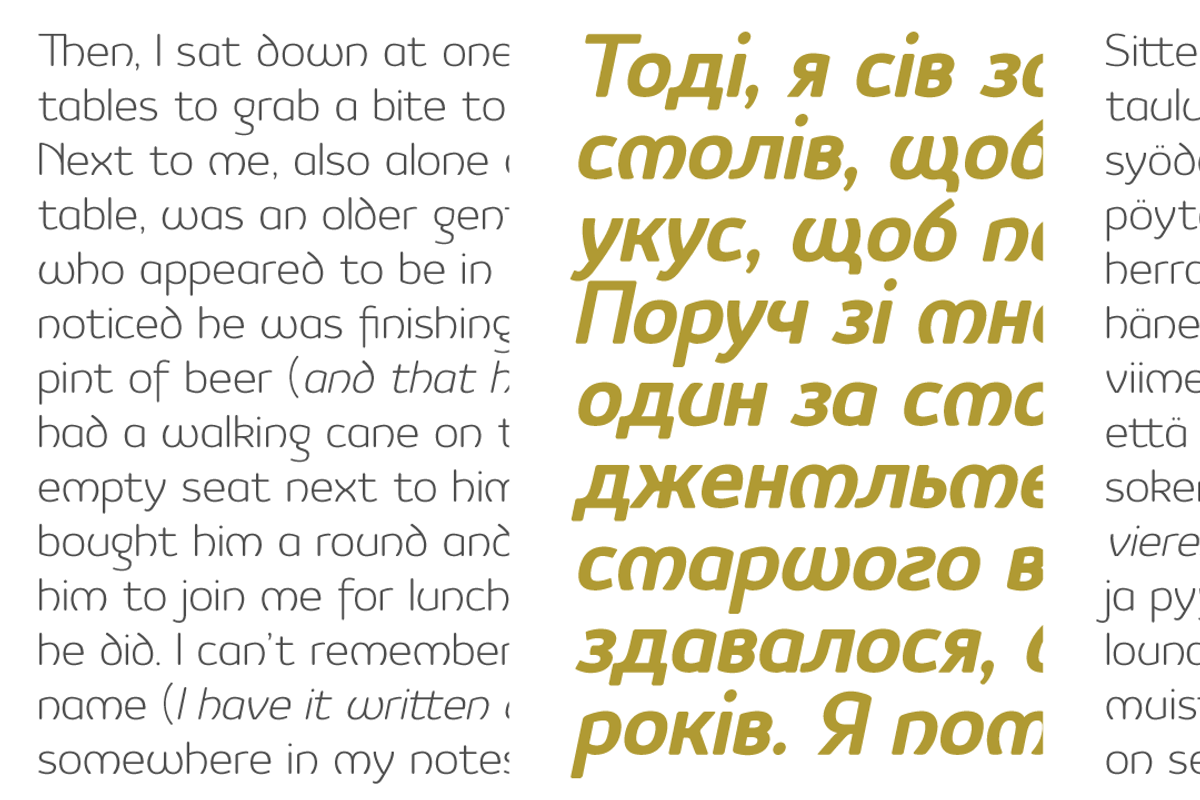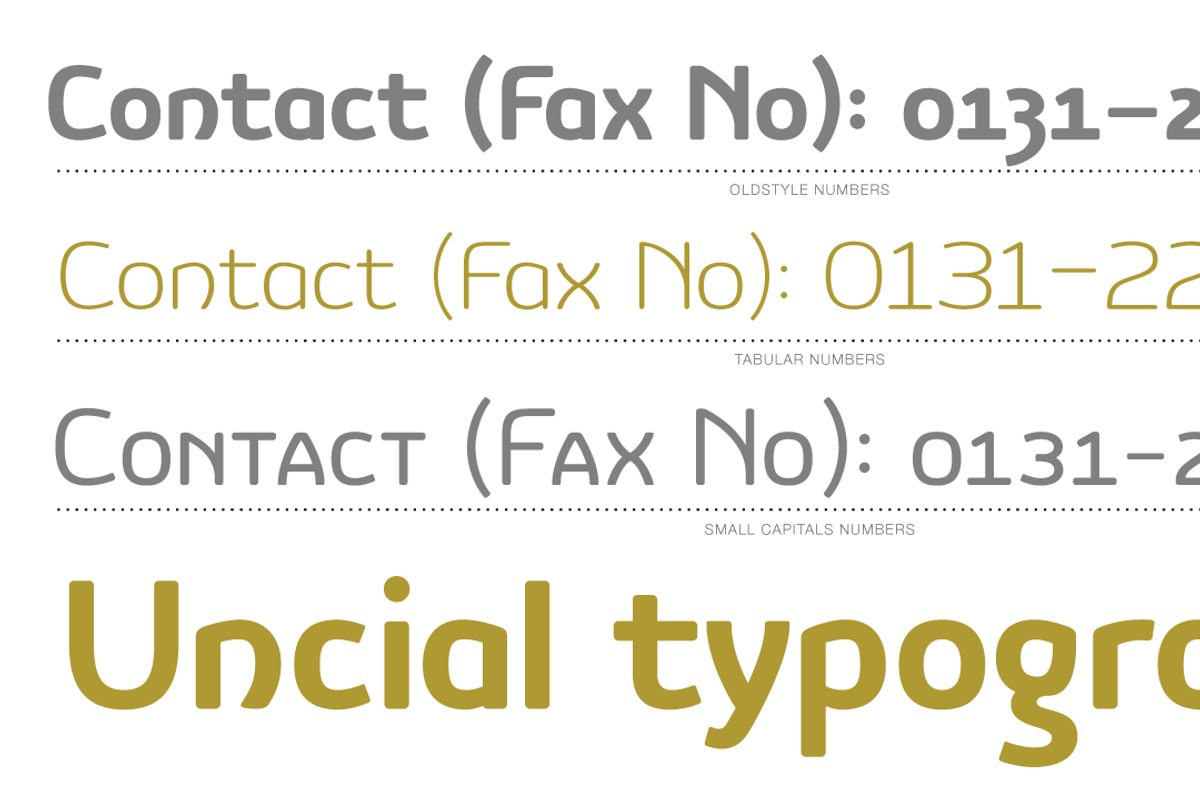
Vulgat
Vulgat is a Uncial inspired typeface that offers a vibrant personality while staying clear and legible in all applications, a contemporary style modeled by the past. This typeface features an extended Latin support for all European languages plus Cyrillic support.